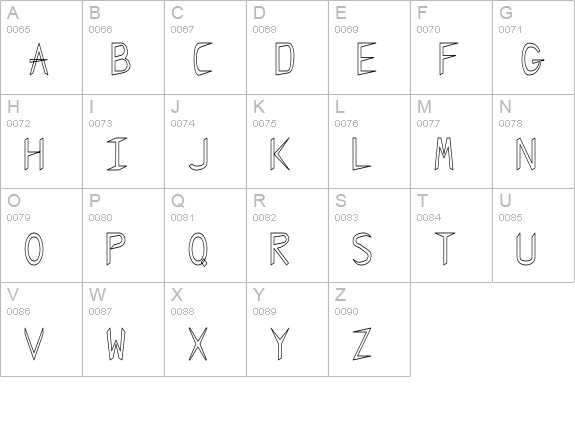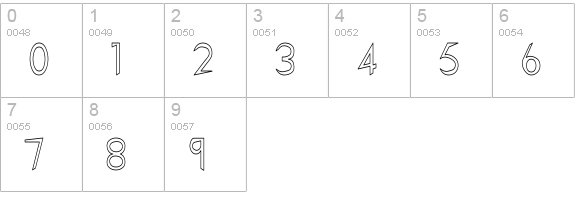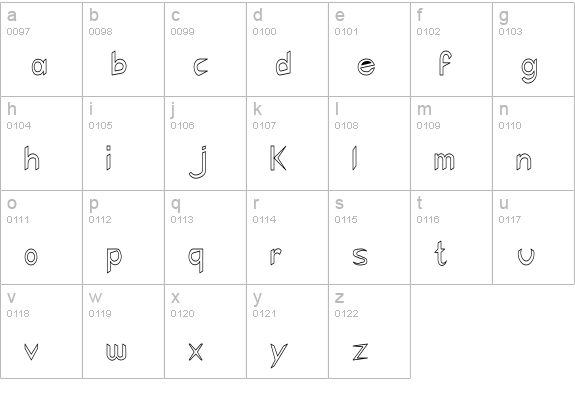
Gregorian__KK Font Details
Gregorian__KK is a stunning and elegant font that exudes a sense of sophistication and style. With its classic and timeless appeal, this font is perfect for a wide range of design projects, from invitations to branding to signage. The sleek lines and delicate curves of Gregorian__KK make it a versatile choice for both print and digital designs. The best part? Gregorian__KK is available for free download at FontsMarket.com. This means you can easily access this beautiful font and enhance your projects without breaking the bank. Don't miss out on the opportunity to add Gregorian__KK to your font collection and elevate your designs with its exquisite charm. Download it today and let your creativity shine with this stunning typeface.